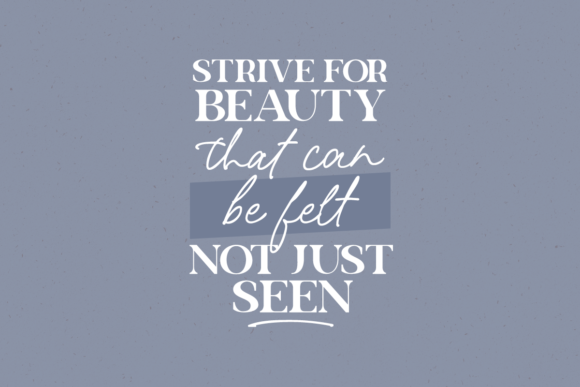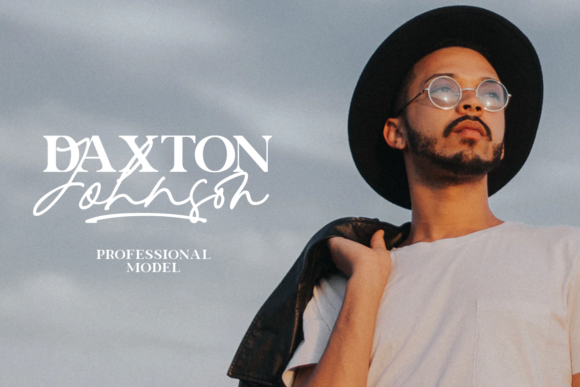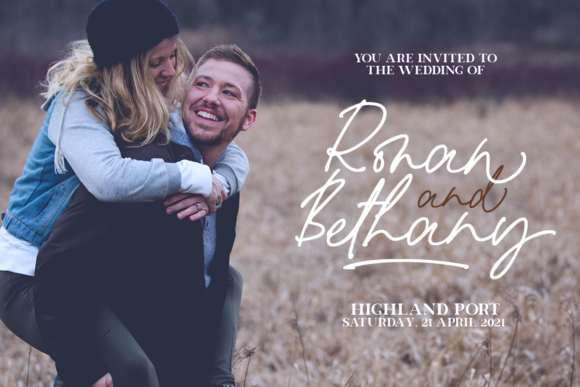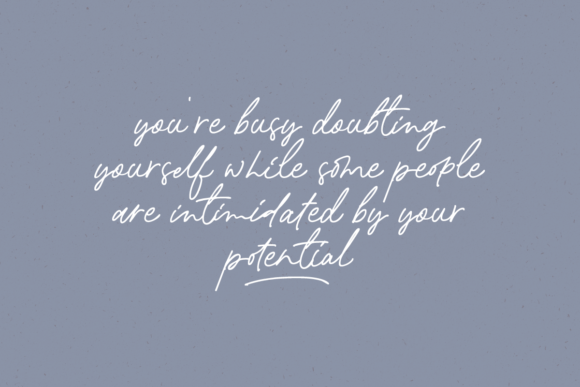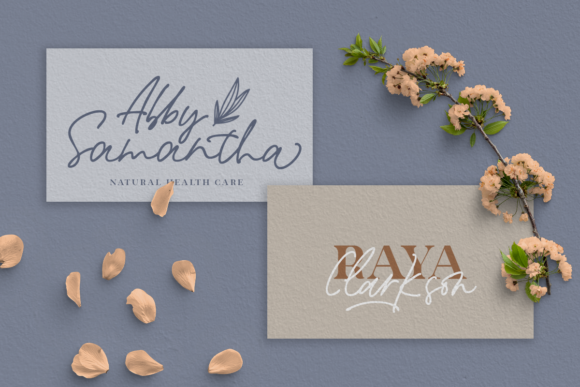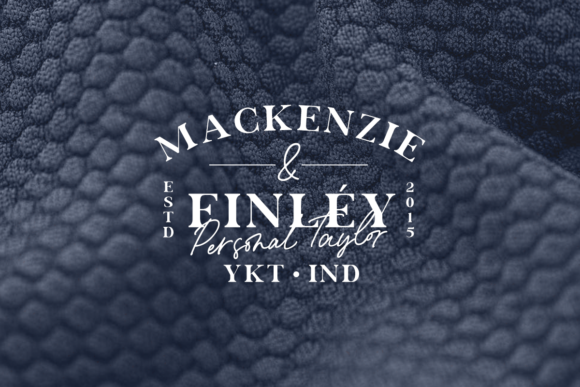
Introduction to Quentin Sonata Font
Quentin Sonata is a pair of modern duo font (serif and classy handwritten script).
Its a versatile font that works perfectly for branding projects, logo designs, product packaging, headline, quotes, and so much more .
Key Features of Quentin Sonata Font